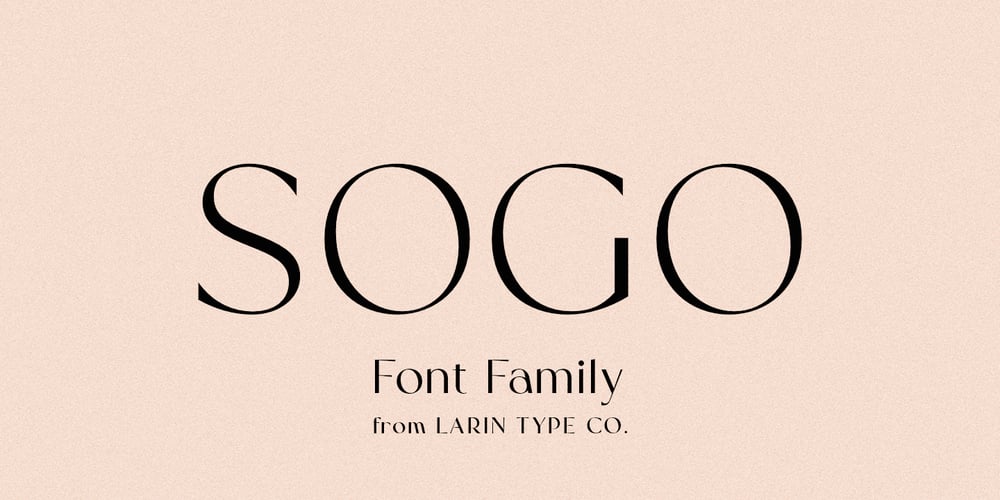
Sogo
Sogo font
Sogo Font Family was designed by Pavel Larin and published by Larin Type Co. Sogo contains 4 styles and family package options. Sogo is an elegant and modern font family.It includes four weights from Thin to Bold. Sans serif font is a multi-purpose font that is perfect for any project, it is contrasted, modern and easy to read. Thanks to its clean lines and balanced proportions, it has its own unique charm and charm. With it, you can create logos, use in advertising, packaging, branding, editorial design, and corporate projects, book covers, magazines, headings, descriptions and much more. This font is easy to use has OpenType features.